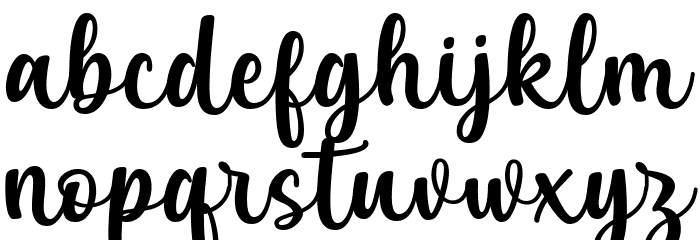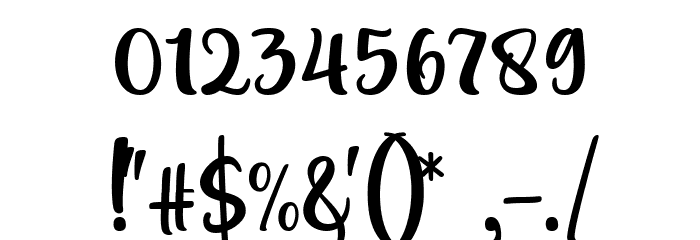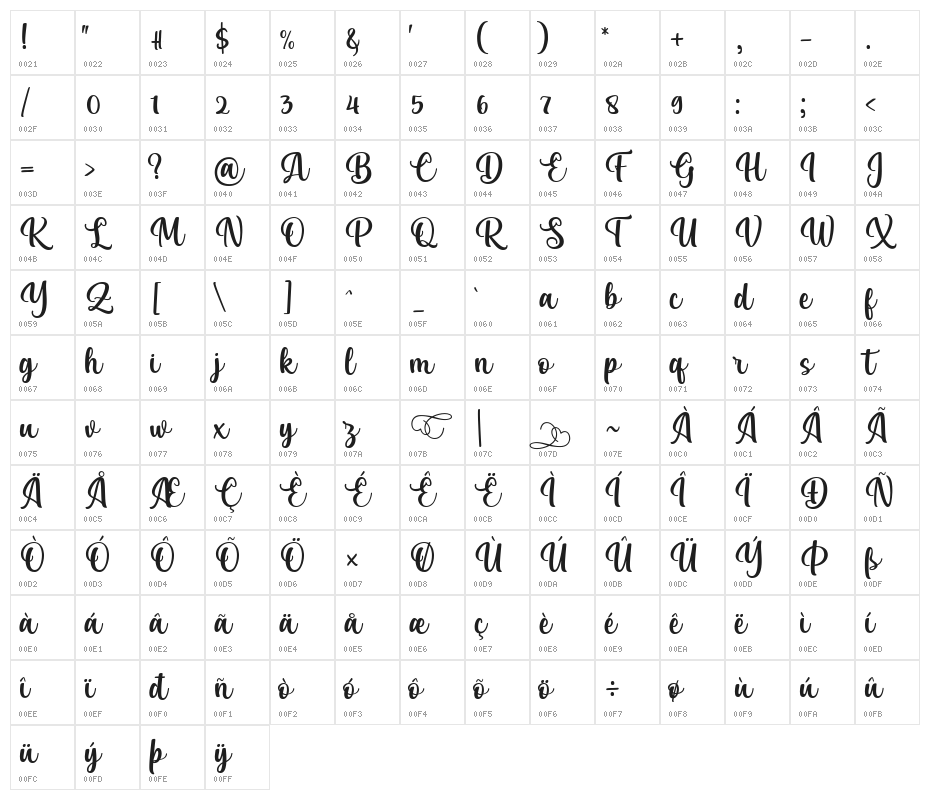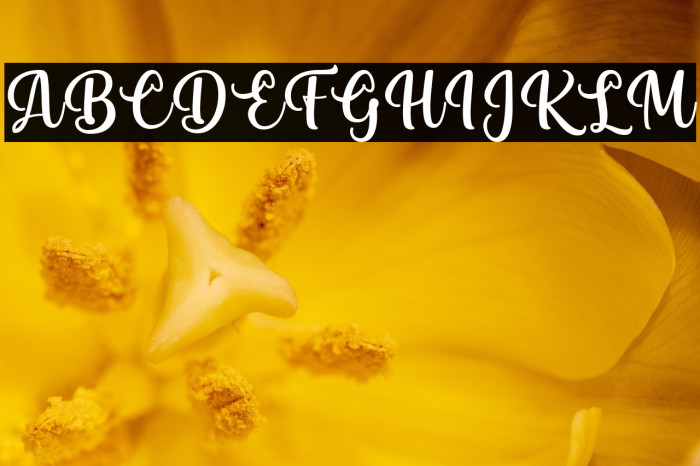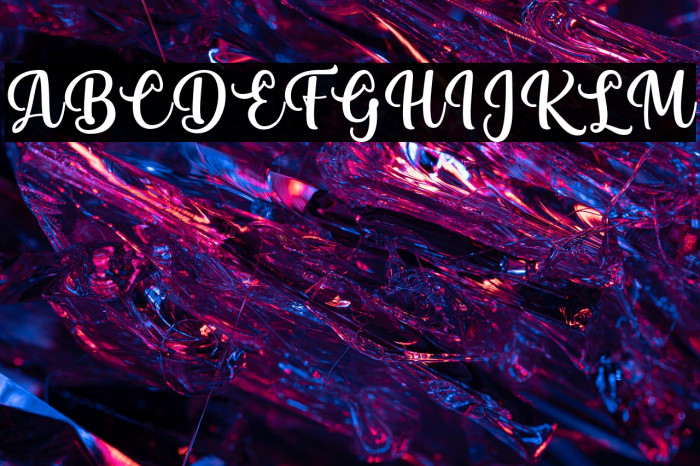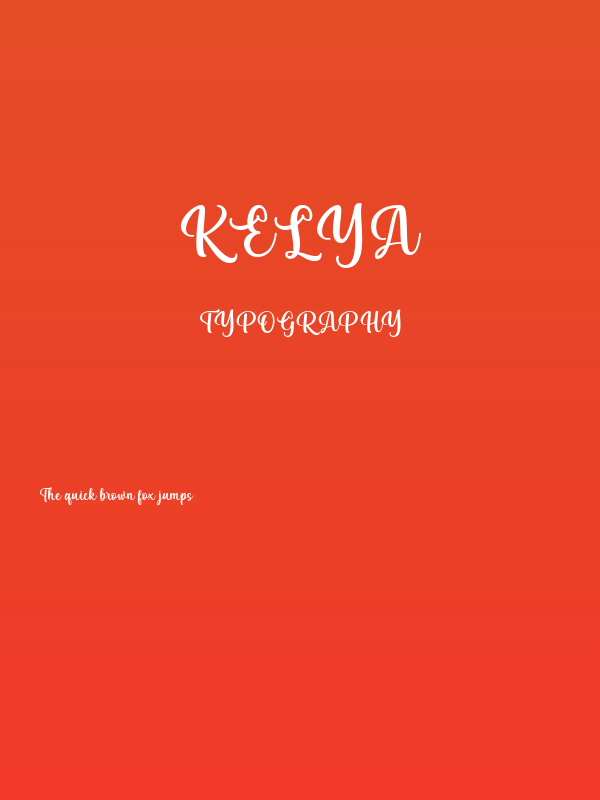
Kelya Font
This font features a flowing, cursive style with smooth, rounded edges and a playful, handwritten appearance. The uppercase letters are elegantly connected, while the lowercase letters maintain a consistent flow, creating a harmonious and inviting look. The numerals are bold and clear, matching the overall style of the alphabet. Special characters are designed with the same fluidity, ensuring a cohesive appearance across all glyphs. The font's design is both modern and classic, making it versatile for various applications.
A flowing, cursive font with a playful, handwritten style.
- Proposed Projects: Ideal for wedding invitations, greeting cards, branding, and social media graphics.
- Category: Script
- Use Case: Logos, Headlines, Decorative text